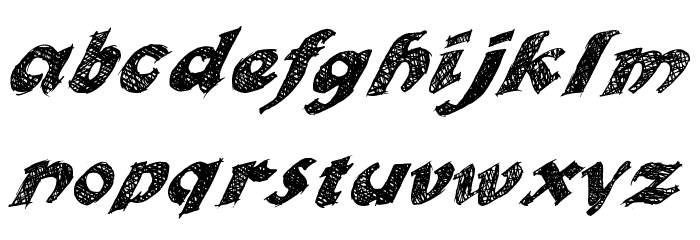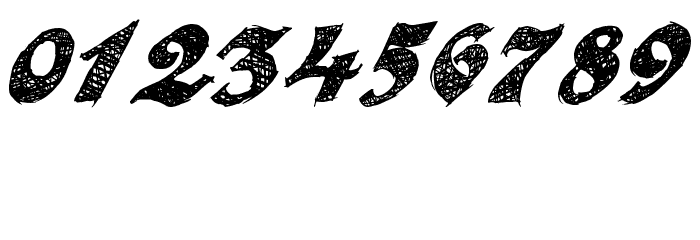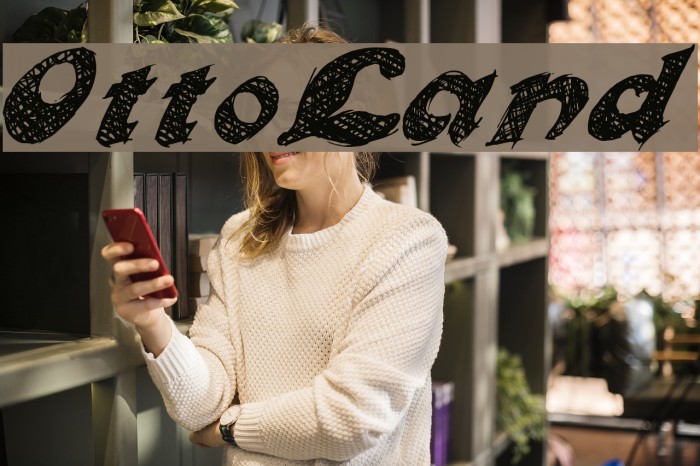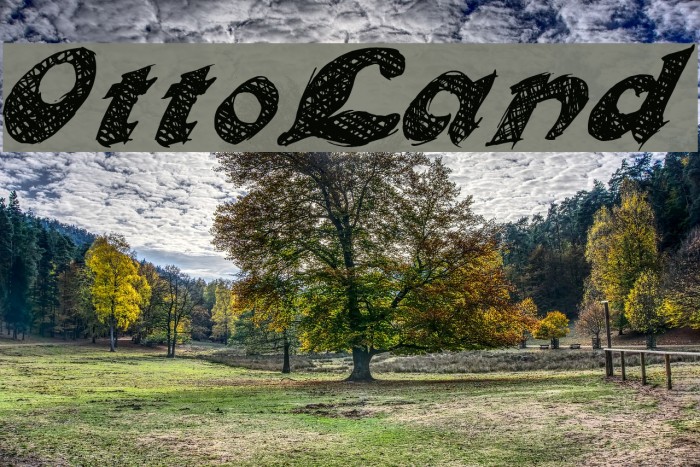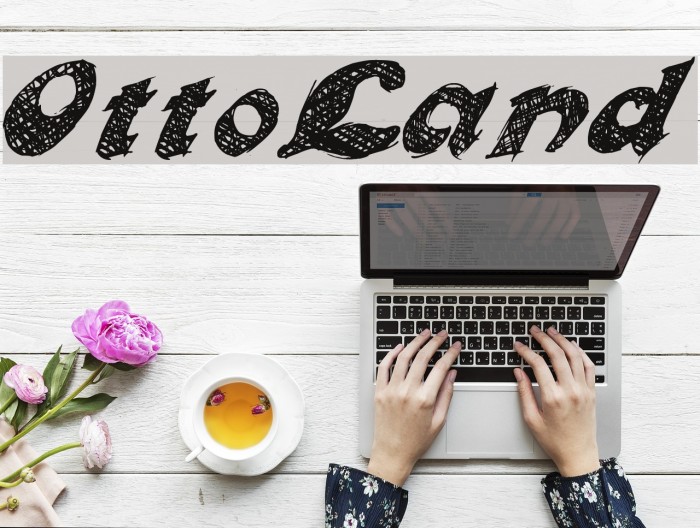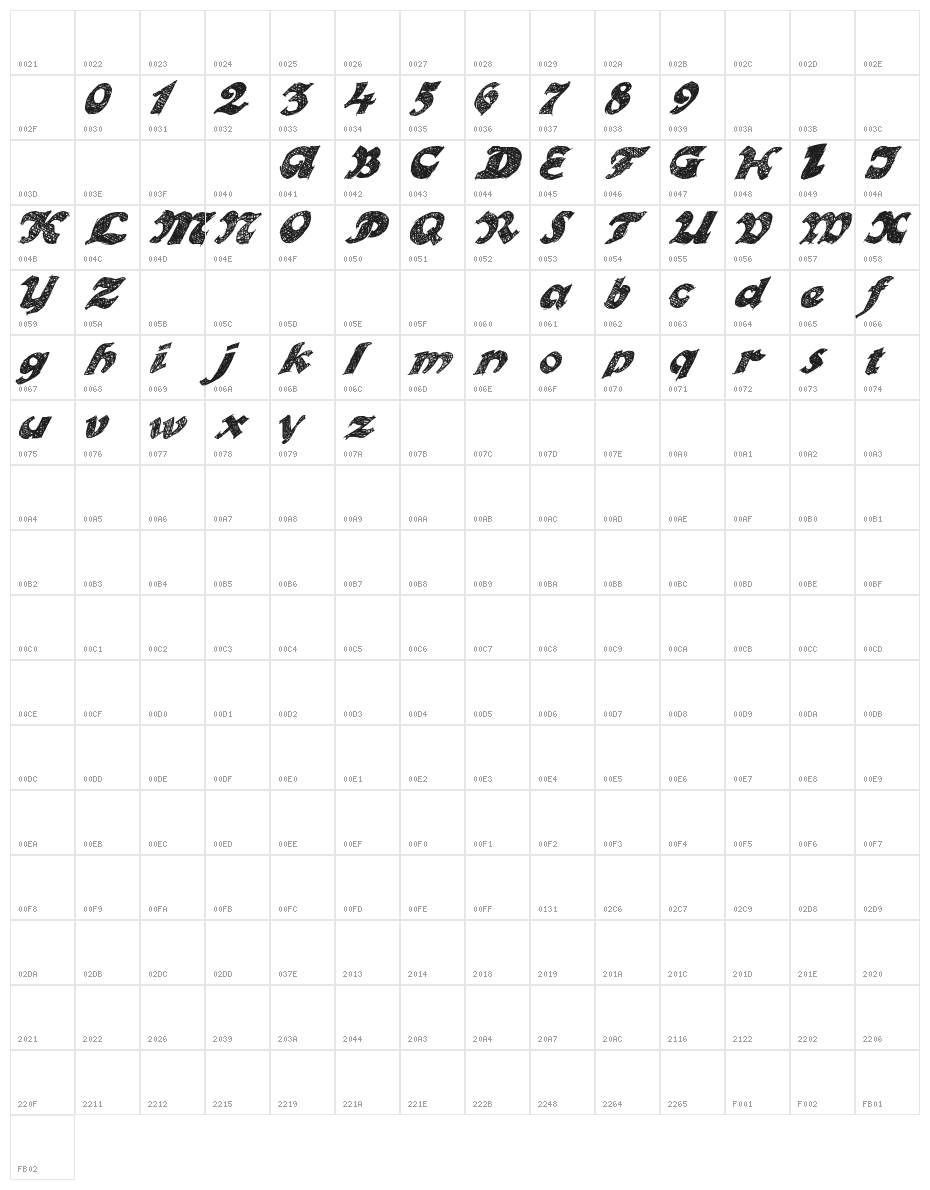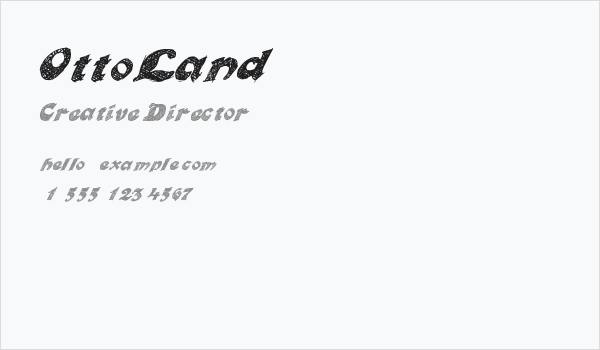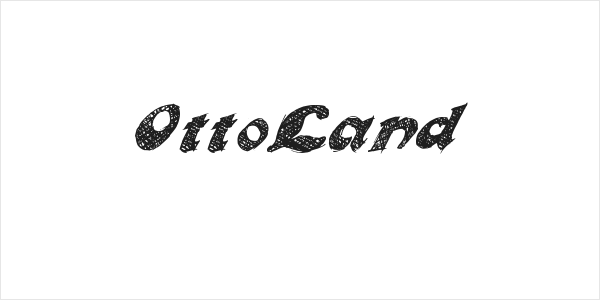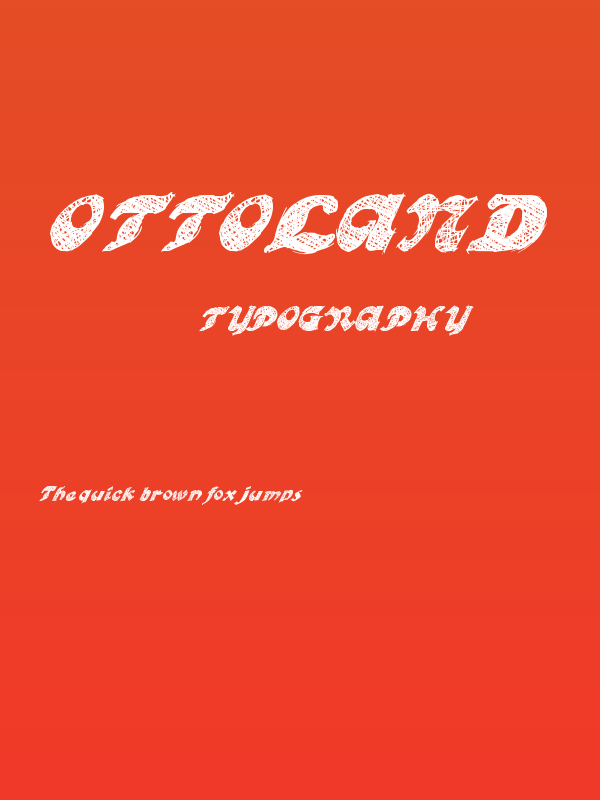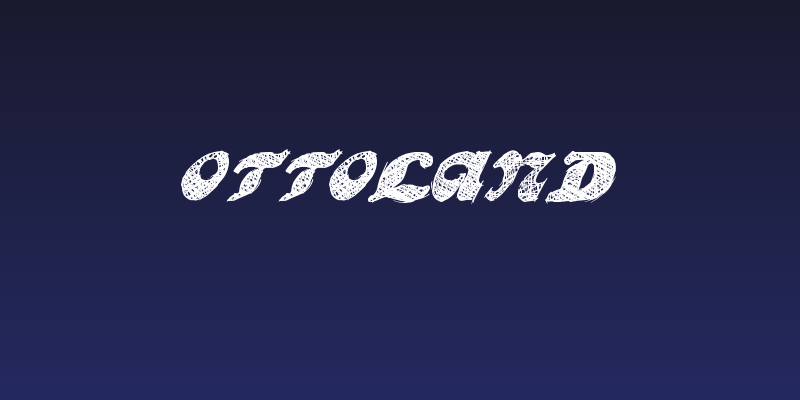
OttoLand Font
This font features a bold, decorative style with a textured, hand-drawn appearance. The characters are filled with intricate patterns that give a sense of movement and energy. The strokes are thick and vary in width, creating a dynamic and eye-catching effect. The overall design is playful and artistic, making it suitable for projects that require a unique and creative touch. The uppercase and lowercase letters maintain a consistent style, while the numbers and special characters complement the overall aesthetic.
A bold, decorative font with a textured, hand-drawn appearance.
- Proposed Projects: Ideal for posters, album covers, artistic branding, and creative invitations.
- Overall Style: Artistic, Playful